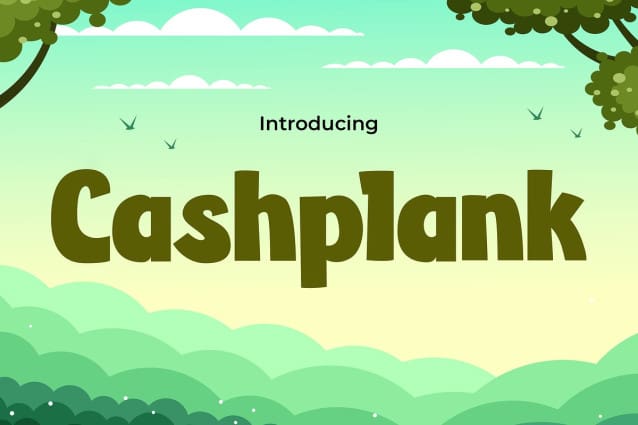
Cash Plank Font
Cash Plank Font immerses you in the thrilling world of gaming with its bold and dynamic design. Inspired by the adrenaline-fueled atmosphere of digital battlegrounds, each letter radiates power and excitement. Whether you’re creating game logos, stream overlays, or esports team branding, Cash Plank injects your designs with a sense of competitiveness and intensity that captures the essence of gaming culture. With its sleek lines and futuristic vibe, this font is your ultimate companion in crafting captivating visuals that command attention on screen.
Step into the realm of gaming dominance with Cash Plank font. Designed for gamers, by gamers, this font brings your digital adventures to life with its cutting-edge style and unparalleled versatility. From game interfaces to promotional materials, Cash Plank font empowers you to unleash your creativity and leave a lasting impression on your audience. Elevate your gaming experience and level up your designs with Cash Plank font today